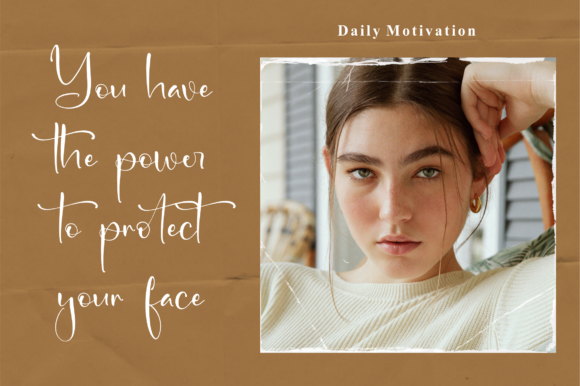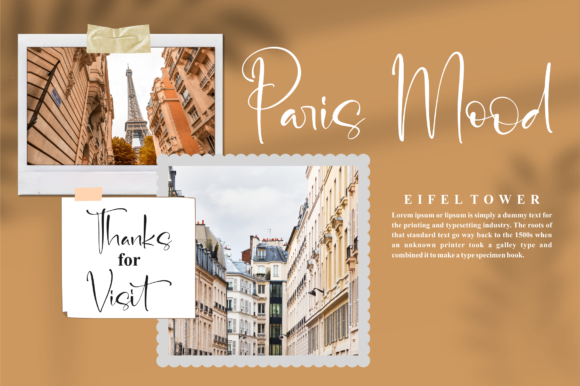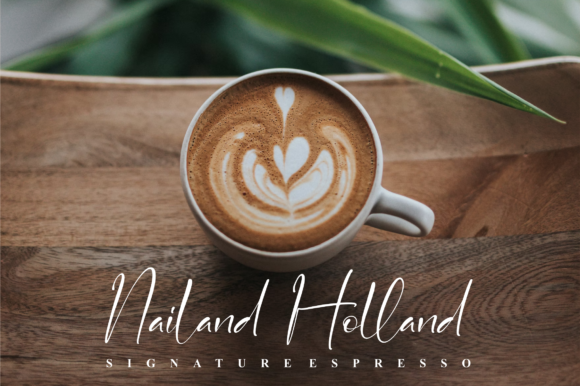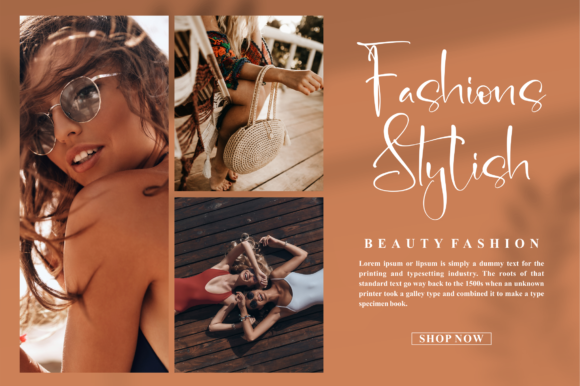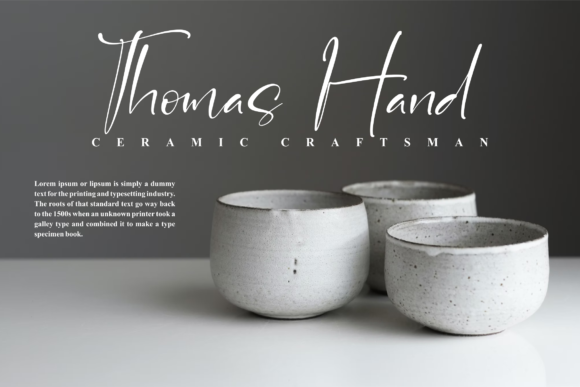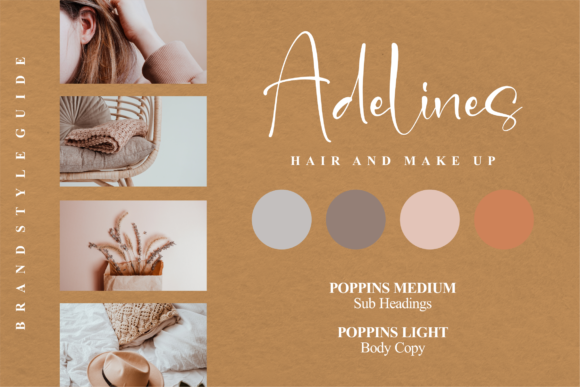
Introduction to Rosefetina Font
Rosefetina is a delicate and beautiful script font.
It is suitable for various projects such as: logos, branding projects, homeware designs, product packaging, mugs, quotes, posters, shopping bags, and various other creations Rosefetina is PUA encoded which means you can access all of the glyphs and swashes with ease.
Key Features of Rosefetina Font